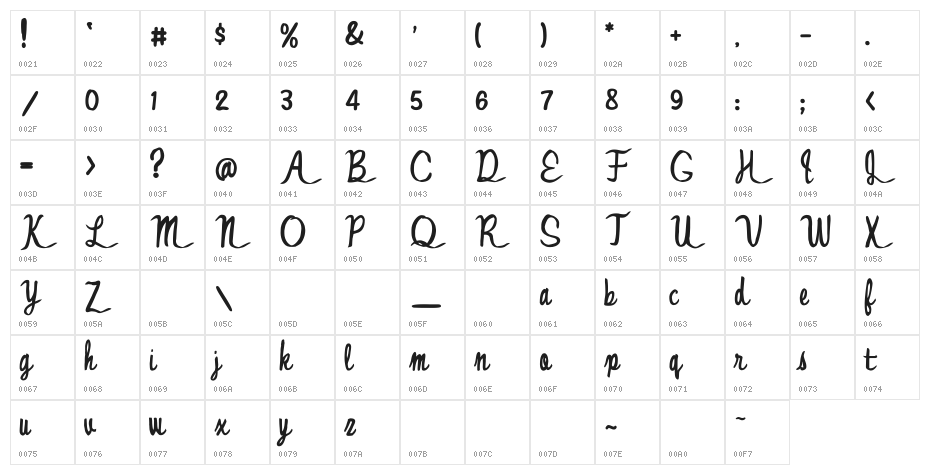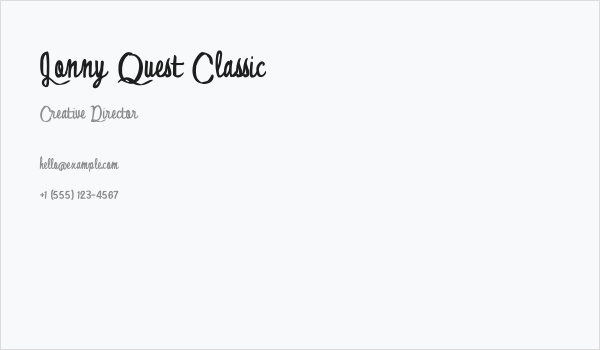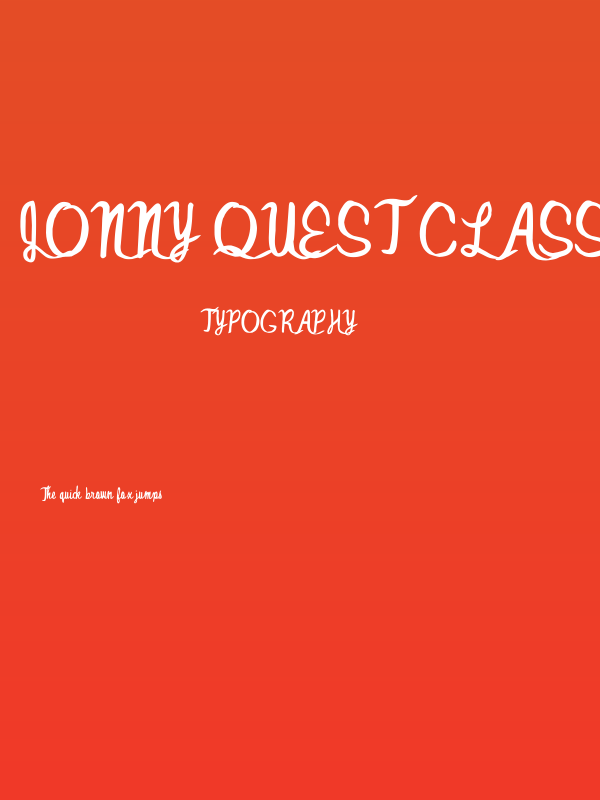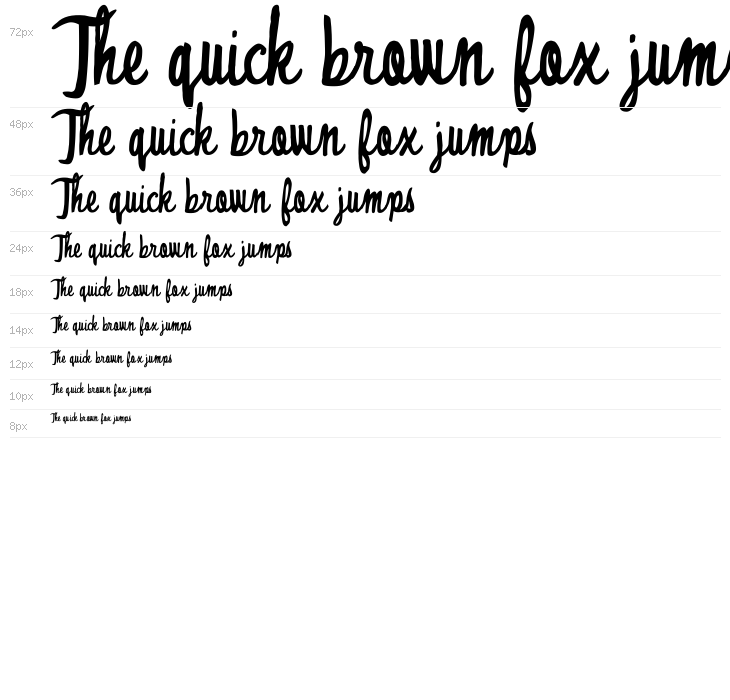
Jonny Quest Classic Font
Jonny Quest Classic Description
This font features a dynamic and playful script style, characterized by its fluid and cursive letterforms. The uppercase letters exhibit a slight slant with elegant curves, while the lowercase letters maintain a consistent flow, enhancing readability. The numerals are bold and rounded, complementing the overall aesthetic. Special characters are creatively designed, adding a whimsical touch. The font's unique style makes it suitable for projects that require a personal and artistic flair.
| Use Case | Logos, Invitations, Creative projects |
| Proposed Projects | Ideal for greeting cards, invitations, branding, and creative projects that require a personal touch. |